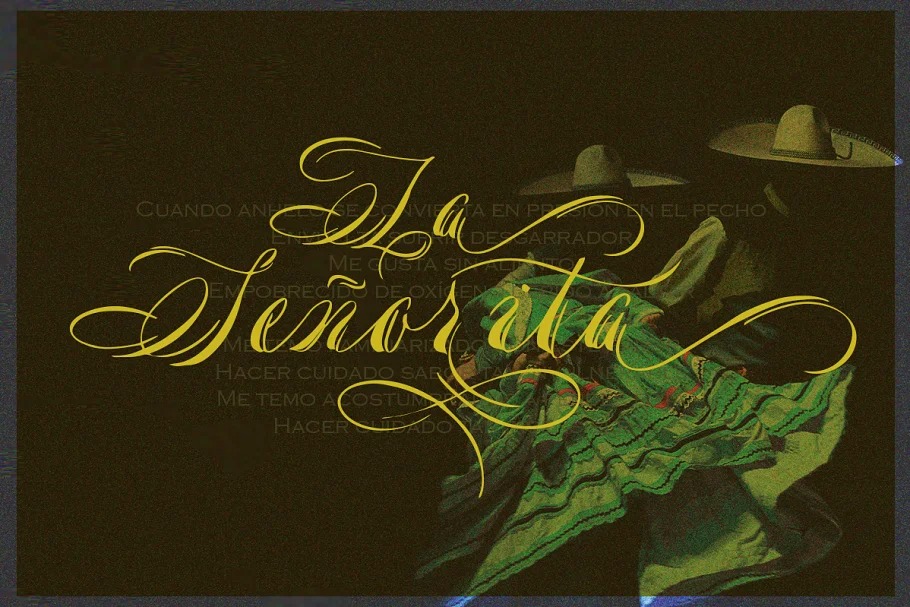
Margoline Script Font
This typeface designed by Letterhend Studio is a unique blend of classic and modern fonts. imperfect tidal forces, such as dance letters, are smooth, clean and simple. Margoline is a swash handwritten font that is perfect for branding, packaging, wedding invitation, card, etc.